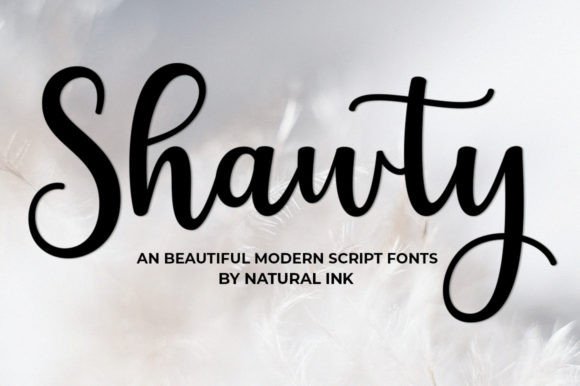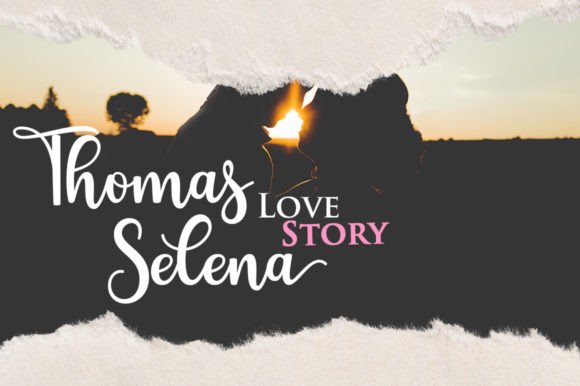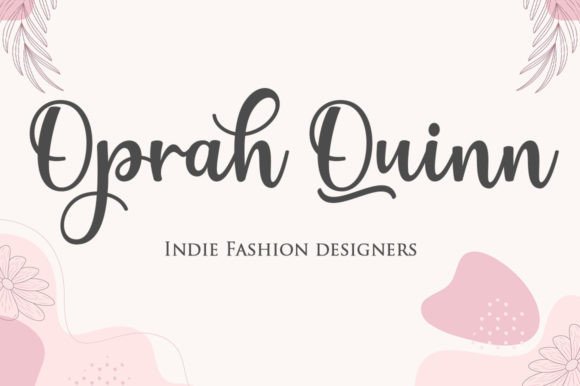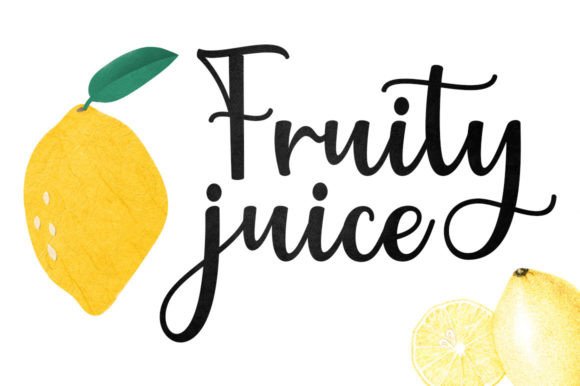
Shawty Script Font
About the Shawty Script Font
The Shawty Script Font offers a perfect balance of form and function for your design needs. Shawty Script is a modern calligraphy design, including Regular. This font is casual and beautiful with swash. Can be used for various purposes. such as logos, product packaging, wedding invitations, branding, headlines, signage, labels, signatures, book covers, posters, quotes, and more.
Shawty Script Font Usage Examples
Shawty Script Font Example